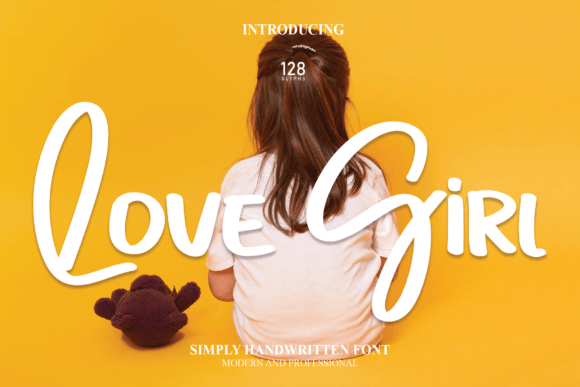
Introducing Love Girl Font, the elegant script typeface that will cast a magical spell on your creative projects. Picture your Instagram feed adorned with enchanting quotes, your wedding invitations exuding timeless romance, your brand logo radiating a touch of sophistication. With Love Girl Font, you can turn your design dreams into a beautiful reality.
Dive into the world of Love Girl Font and explore its myriad wonders. It's the perfect font for crafting heartfelt letters, unleashing your inner poet, or creating captivating social media posts that will ignite your audience's imagination. Let Love Girl Font be your muse as you weave tales of love, friendship, and adventure.
As you glide through the alphabet, you'll discover a symphony of graceful curves and delicate strokes that dance across the page. Love Girl Font's enchanting characters will add a touch of charm and whimsy to your designs, making them truly unforgettable.